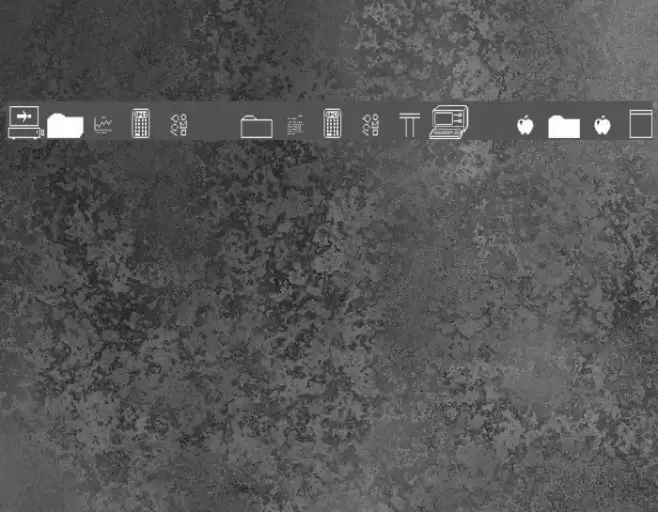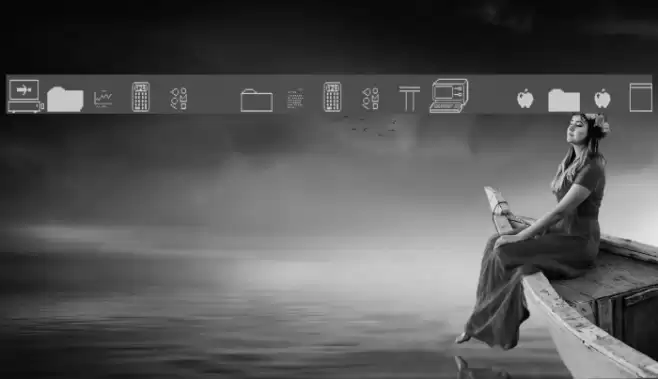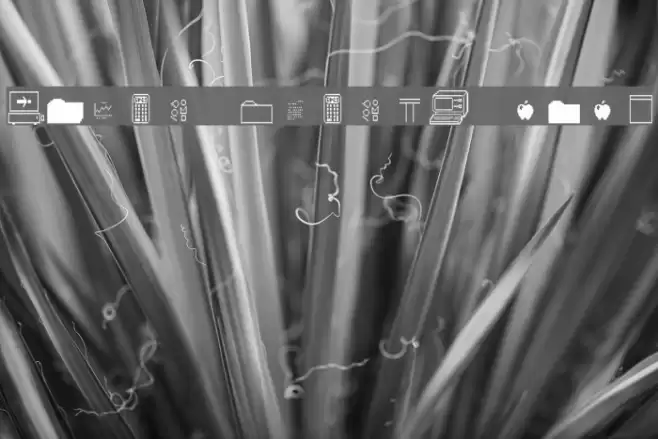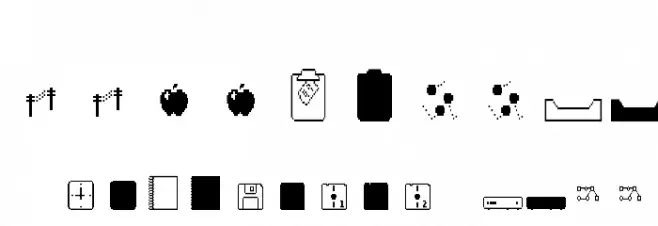
Priam Whamos 2X3Y Font
Priam Whamos 2X3Y Description
A pixel-based icon set featuring retro computer, office, and interface symbols, rendered in a monochrome, low-resolution style reminiscent of early graphical user interfaces.
Pixel art icon font with retro computer and office symbols from Uncategorized fonts.
- Proposed Projects: User interface mockups, retro-themed games, tech posters, pixel art projects, infographics.
- Overall Style: Retro, Decorative, Pixel Art
- Use Case: Icons, UI elements, decorative headings, infographics